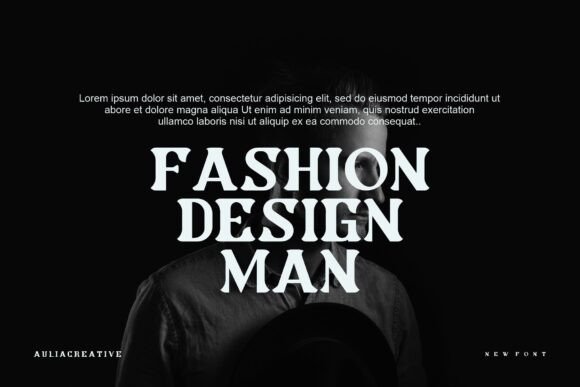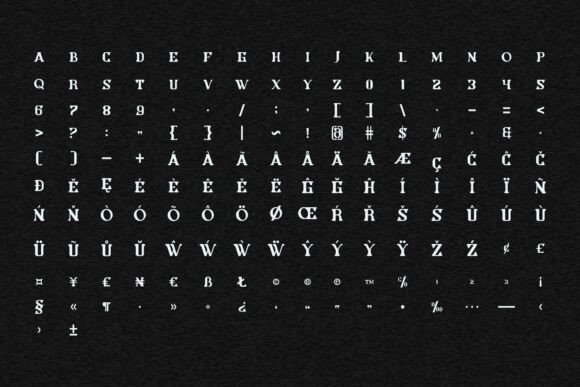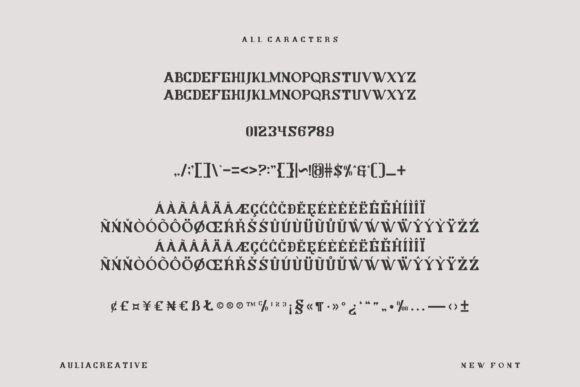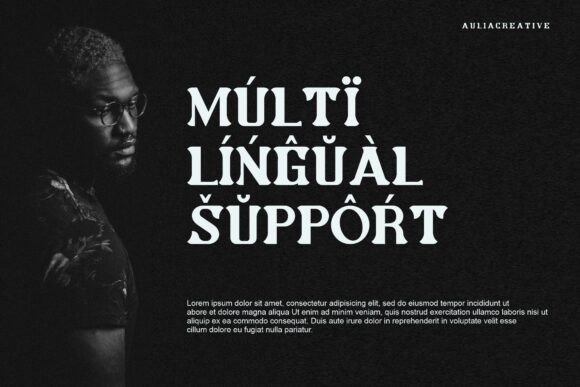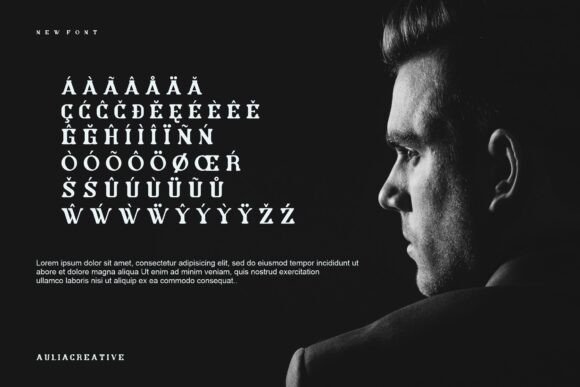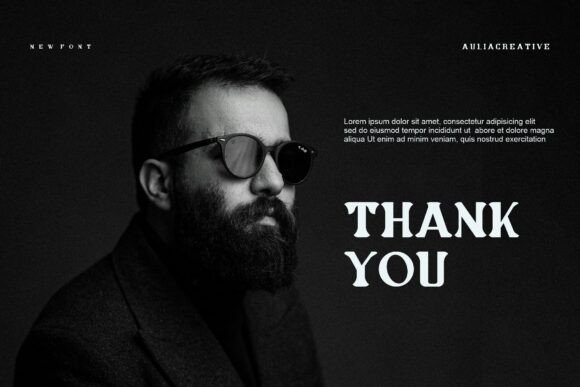
Unleashing Creativity with Binina Font
Have you ever stared at a blank canvas, wondering how to bring your vision to life? We’ve all been there – the blank page, the empty screen, the daunting task of creating something truly special. But what if you had the perfect tool to spark that creative fire within you? Enter Binina Font, a bold and assertive serif font designed to elevate your creations and leave a lasting impression.
Binina Font is more than just a font – it’s a key to unlocking your full creative potential. Whether you’re a seasoned designer or just starting out, this versatile font is the perfect addition to your toolkit. With its striking lines and confident presence, Binina Font is sure to add a touch of sophistication and style to any project.
So why settle for ordinary when you can have extraordinary? With Binina Font, the possibilities are endless, and your creativity knows no bounds.
Binina Font Key Features
- Font Family: Binina comes in multiple font styles, including Regular, Italic, Bold, and Bold Italic.
- Character Set: Supports a wide range of languages, including Latin, Cyrillic, and Greek alphabets, making it suitable for international use.
- Unique Characteristics: Binina features a unique blend of modern and traditional design elements, with subtle flourishes and ornaments that add a touch of elegance to any text.
Designer Review: Binina Font
I recently had the chance to dive into the Binina font, and I’m here to share my honest thoughts.
- Unique and elegant design: Binina’s flowing curves and subtle flair give it a sophisticated touch.
- Great for branding and marketing materials: Its refined look makes it perfect for creating a premium feel in logos, business cards, and brochures.
- Strong versatility: Binina can be used for both digital and print projects, from websites to billboards.
- Limited language support: Binina is primarily designed for Latin-based languages, making it less suitable for languages like Chinese or Japanese.
- Some characters might be hard to read: The font’s distinctive style can sometimes make certain characters, like the lowercase ‘i’ or ‘l’, less clear at smaller sizes.
- Not ideal for small text: Binina’s design is best suited for larger text sizes, as it can become difficult to read at smaller scales.
Binina is a beautiful and versatile font that can elevate your design projects. However, it’s essential to consider its limitations and use it thoughtfully. With its unique design and strong branding potential, Binina is a great choice for the right projects – just be aware of its potential drawbacks.
Binina Font is ideal for creating elegant and modern designs in Canva, such as social media graphics, posters, and infographics.
Binina Font is perfect for creating professional-looking designs in Adobe Photoshop and Illustrator, such as logos, brochures, and business cards.
Binina Font is ideal for creating engaging and professional-looking presentations and documents in PowerPoint and Word.
Binina Font is perfect for:
- Creative and modern designs
- Professional-looking presentations and documents